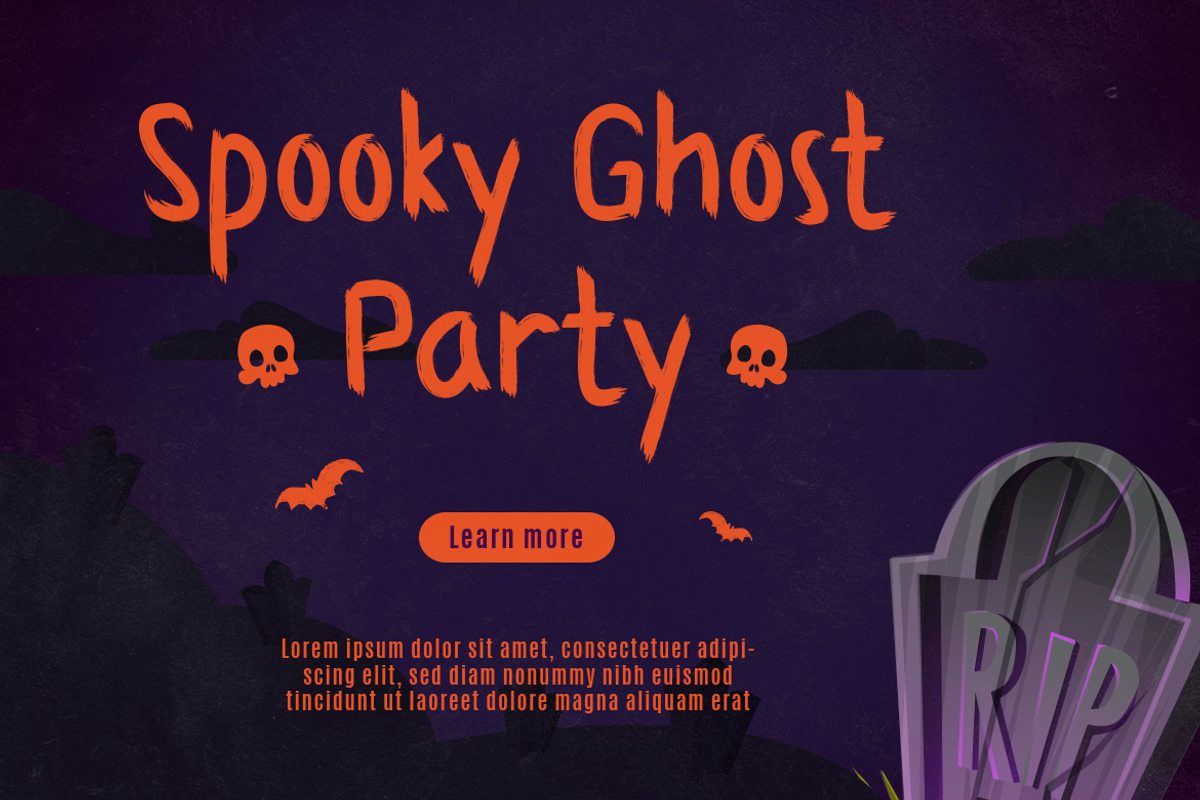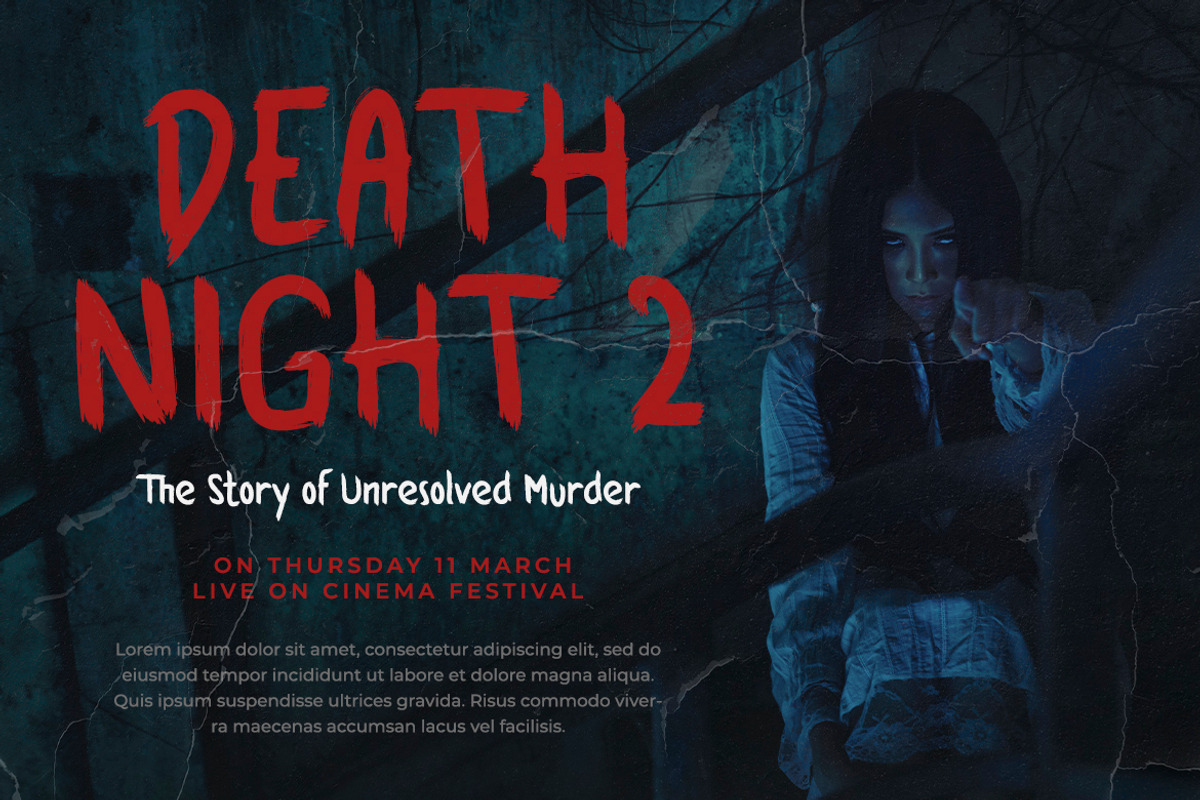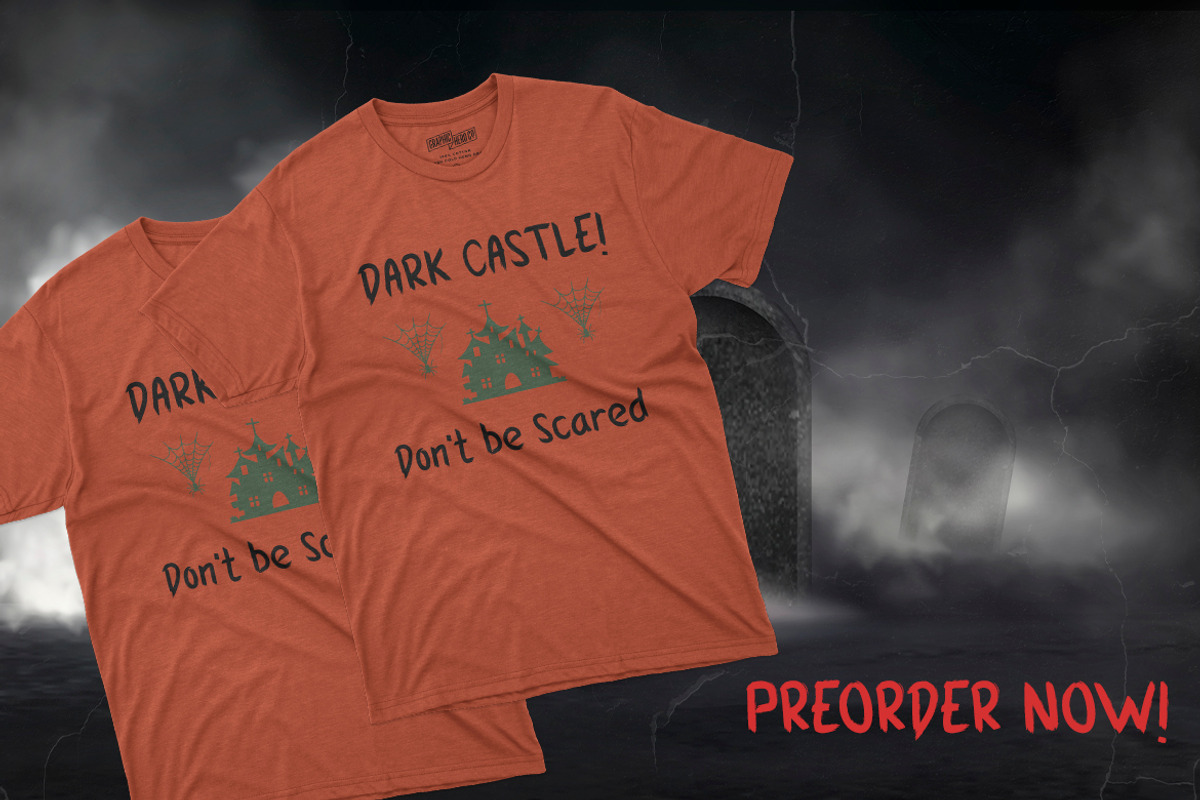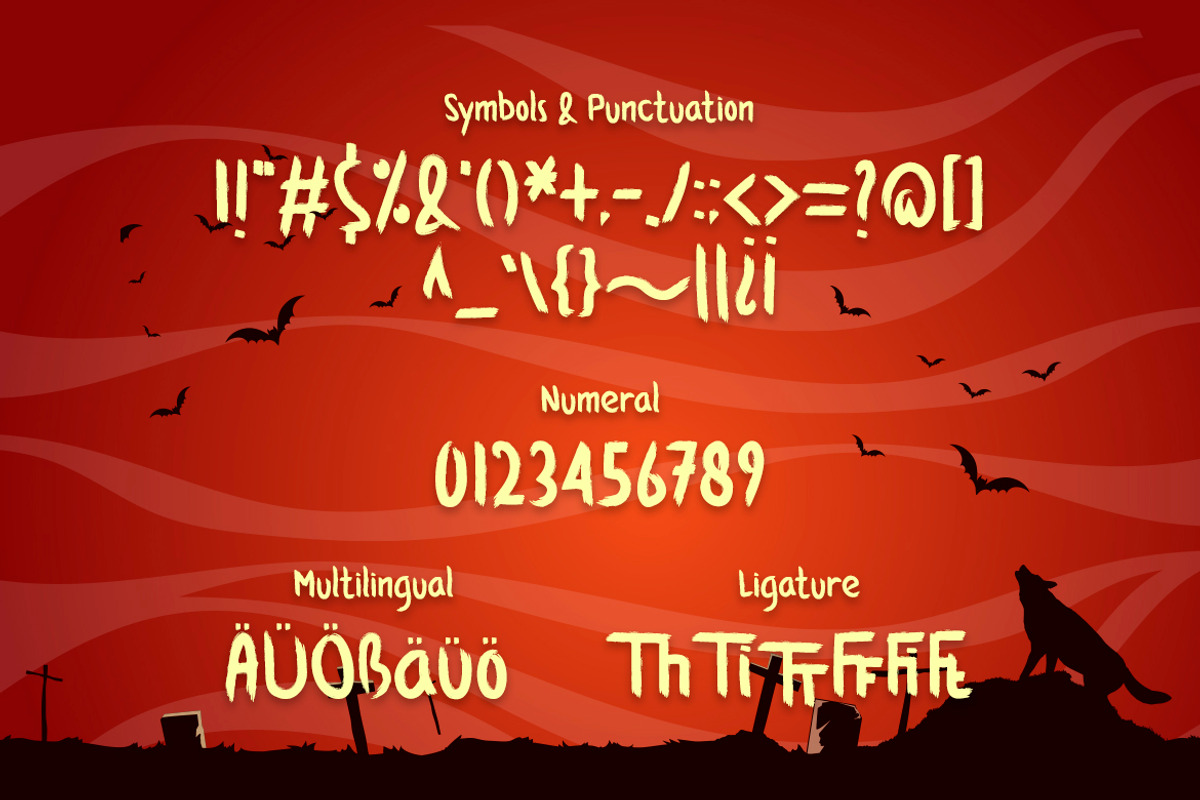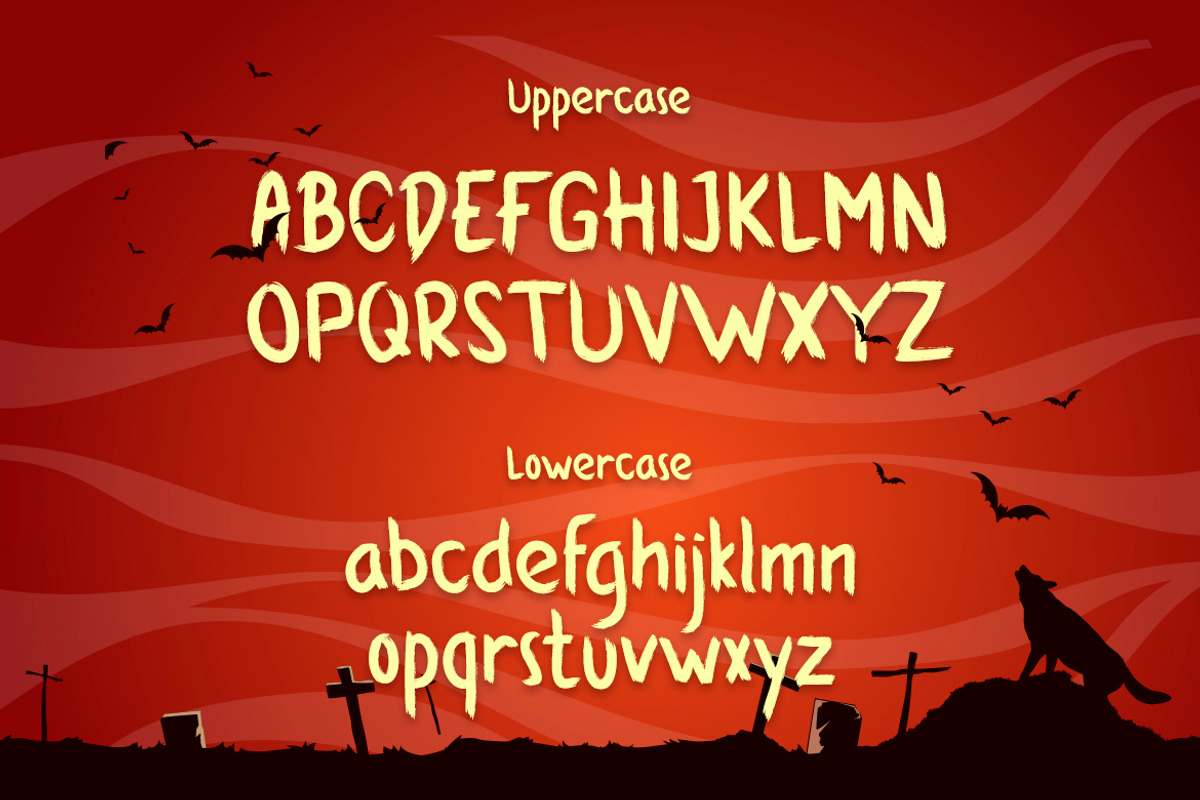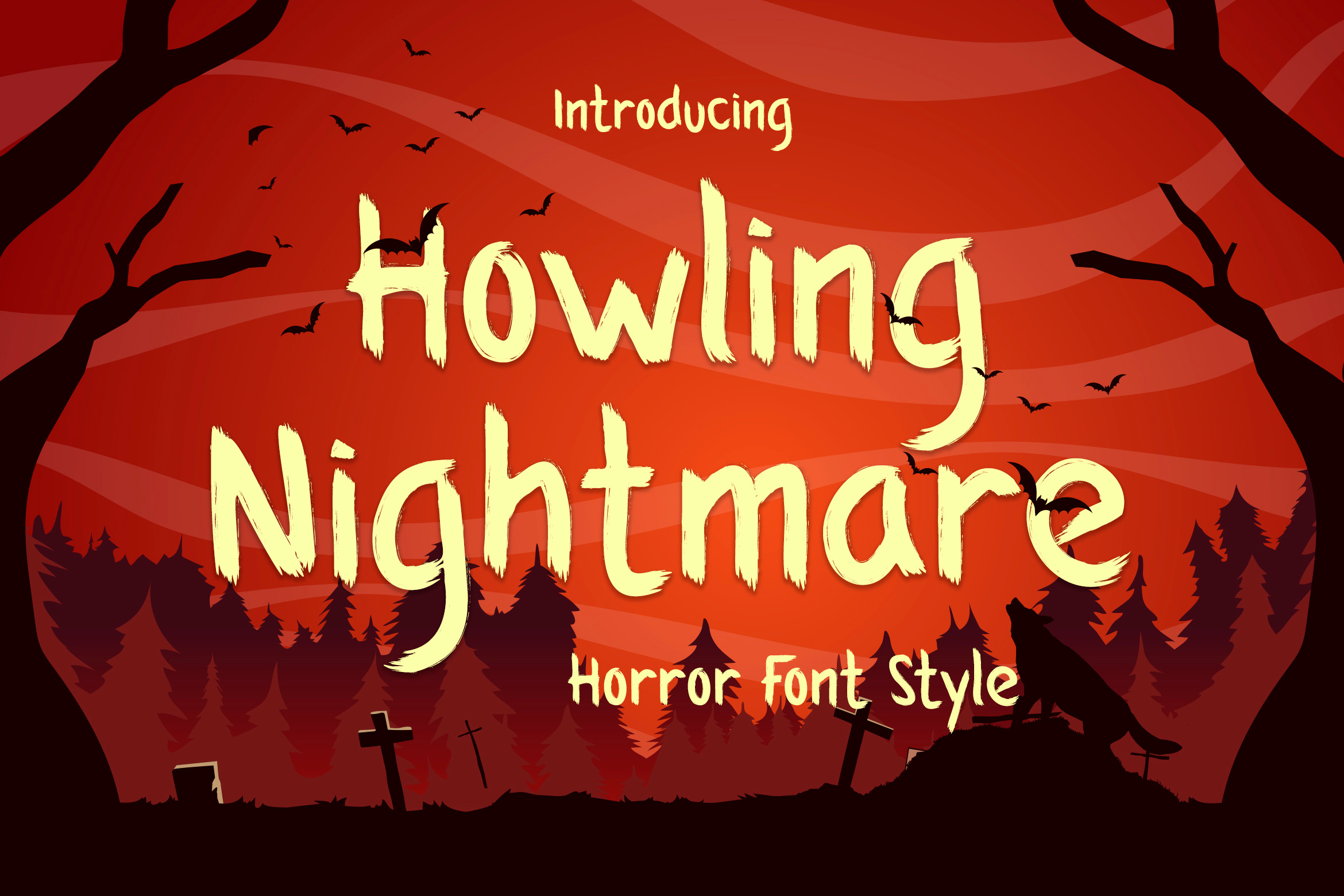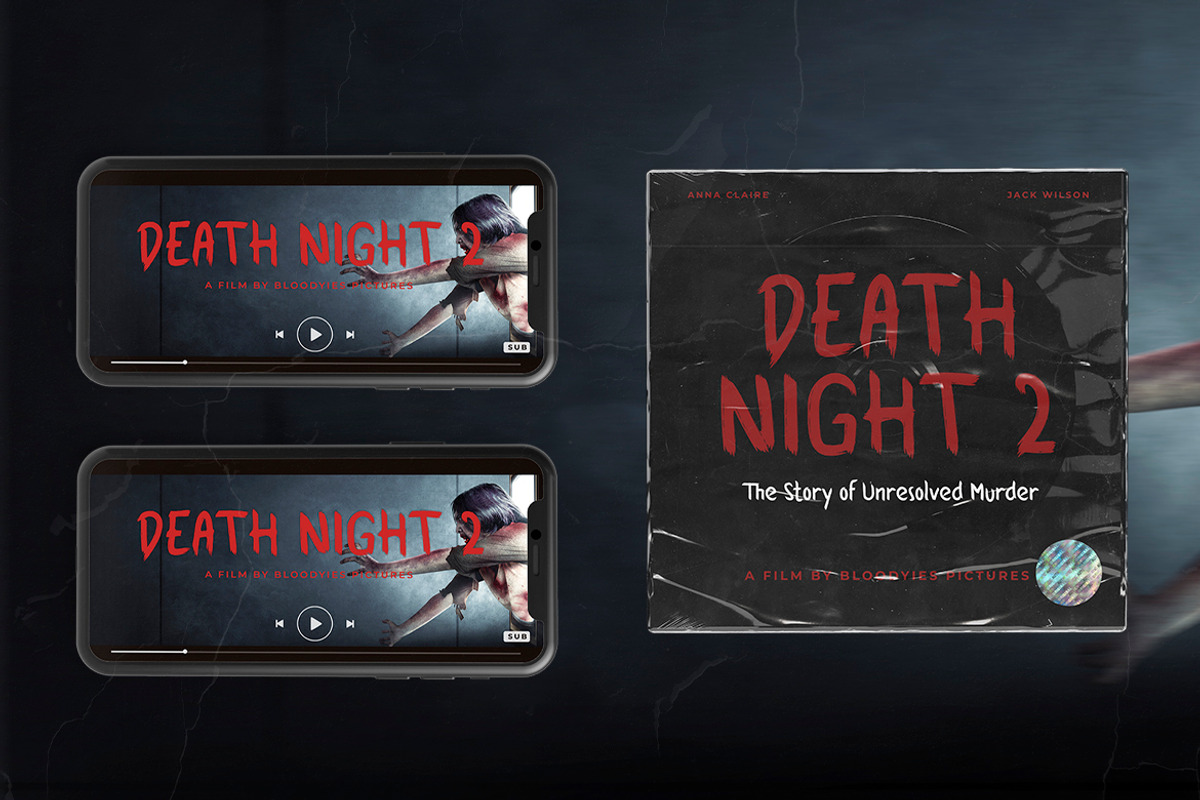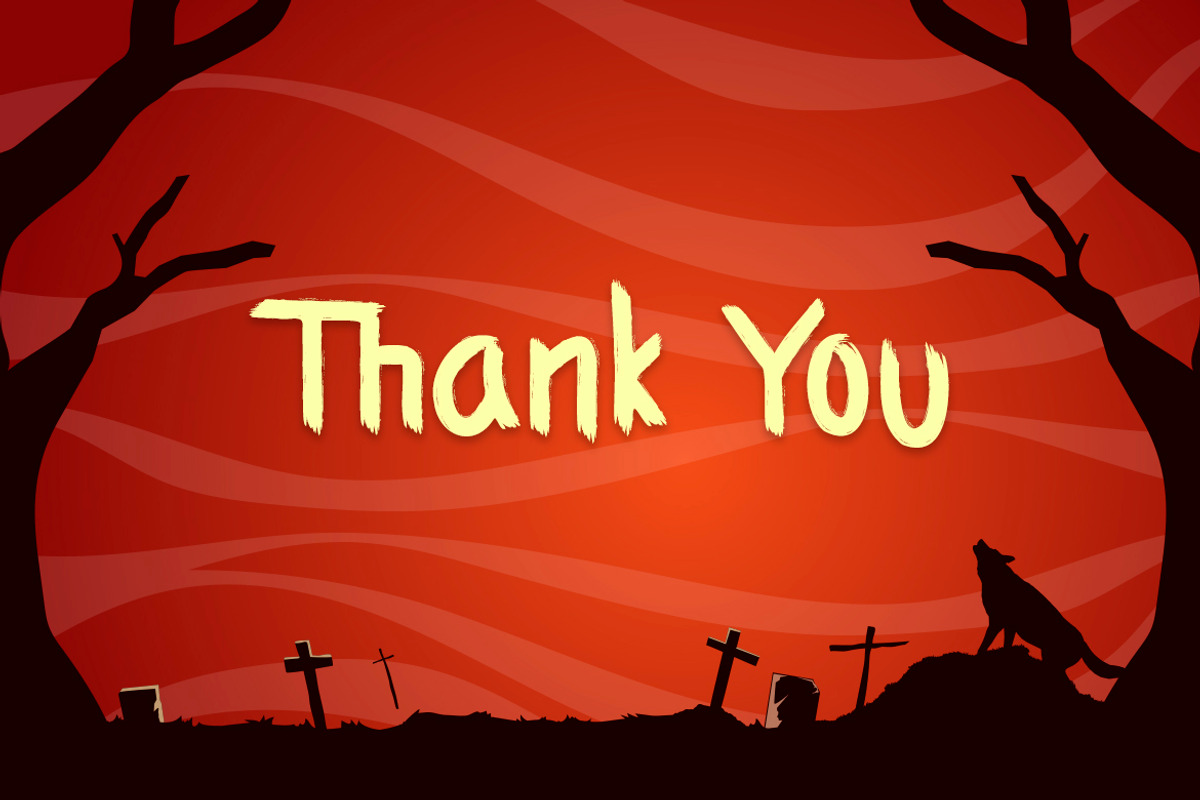
Howling Nightmare - Horror Font Styl
You’ve been looking for a ‘spine-chilling’ font? One which will provide your works, clients or whatever with an instant feel of spook? This Dead Alone horror font is everything which you’ve been dreaming of and much more. It doesn’t matter if you’re creating Game Horror, T-Shirts or crafts which are meant to be scary – this font will provide any project with extra spook, fright and feels.
- Symbols & Punctuation
- Numeral